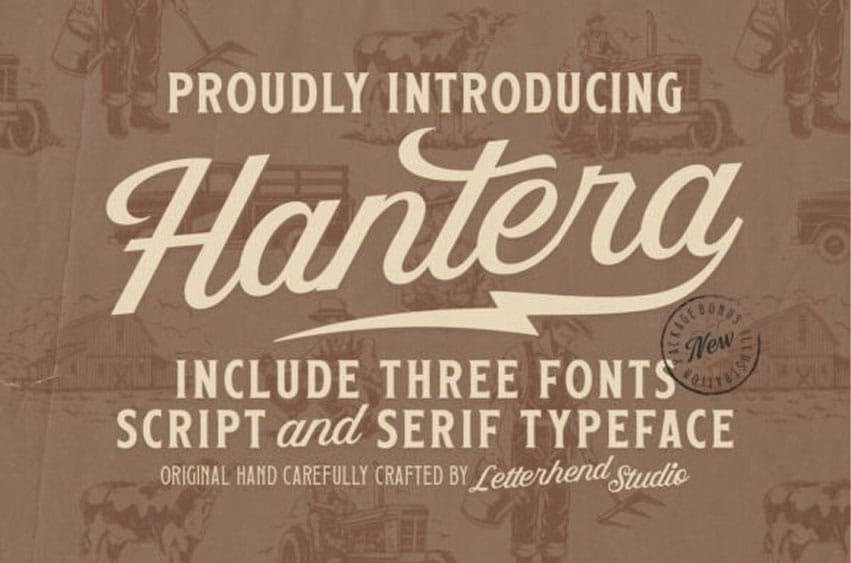
Hantera Font is a vintage-crafted typeface trio that blends elegant script curves with sturdy serif structure, creating a warm old-time charm inspired by classic farm signage and hand-lettered Americana.
Step into the world of vintage Americana with the Hantera font, a meticulously crafted family that brings the soul of the workshop to your screen.
This comprehensive Hantera typeface collection includes three distinct styles: a flowing, custom-style script and two robust serif versions. It is the definitive choice for heritage branding, automotive logos, and artisanal product labels that require a “hand-built” aesthetic. You can enhance the Hantera font by layering the script over the serif for a classic secondary-text effect, or use the bonus illustrations to create a complete, cohesive brand identity.
Whether you are designing for a local brewery or a custom garage, this family offers the perfect balance of ruggedness and refined craftsmanship.
With its sweeping swash, textured retro tone, and timeless character, this font set brings a nostalgic, rustic spirit to branding, packaging, posters, menus, and heritage-themed projects.